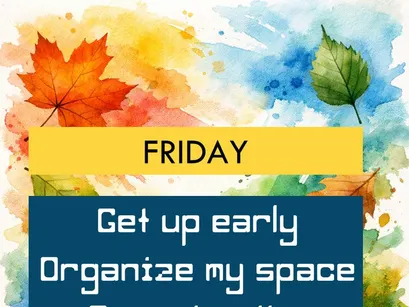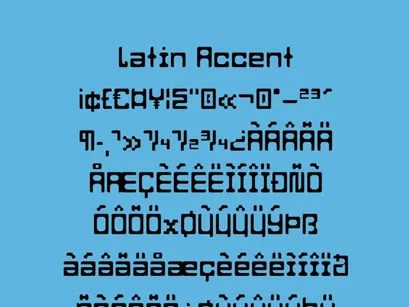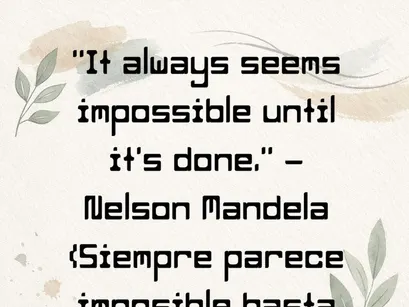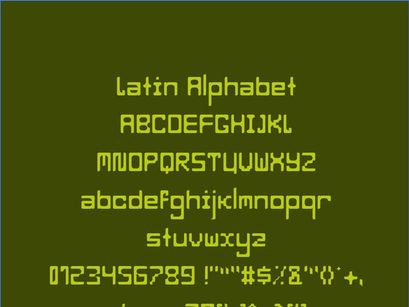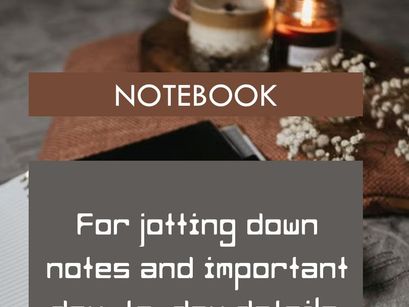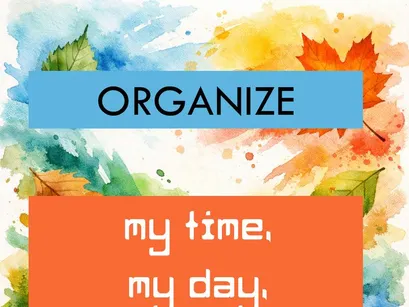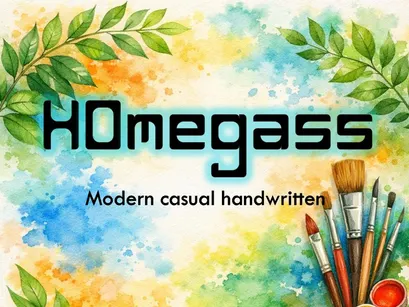
HOmegass is a modern, casual, handwritten typeface with a geometric, modular foundation, created to convey a sense of order and creativity in both personal and professional projects.
Its balanced strokes and digital-handcrafted style make it perfect for notebooks, planners, covers, motivational quotes, and emotional branding.
It includes a full Latin alphabet and accents, supporting both English and Spanish.
Crafted using FontStruct, HOmegass combines digital precision with the charm of a hand-drawn stroke.